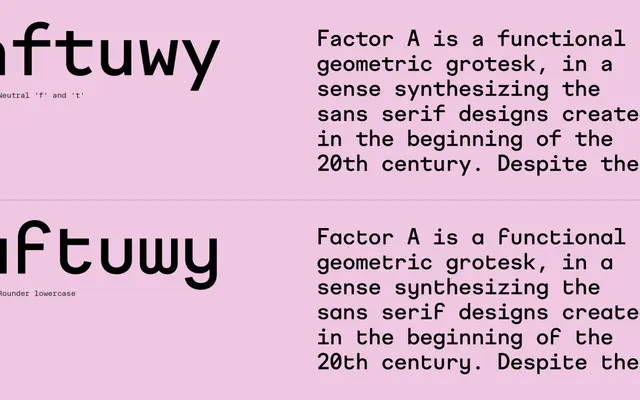
Factor A Mono specimen from Interval Type
A monospaced companion to Factor A, bringing the geometric grotesque's warmth and alternate glyph system to a fixed-width format across five weights.
Built as a counterpart to the Factor A family, this monospaced cut retains the geometric grotesk foundation while introducing the same alternate character sets, including rounded lowercase forms, a neutralised 'f' and 't', and a 'funk it up' set for display use. Five weights run from Ultralight to Bold, with no italics. Coverage extends across Extended Latin and Cyrillic, making it suitable for branding, web and signage work where a fixed-width grid is required.
A monospaced companion to Factor A, itself a geometric grotesque; the fixed-width construction and geometric skeleton place it firmly in the monospaced category with geometric sans characteristics.